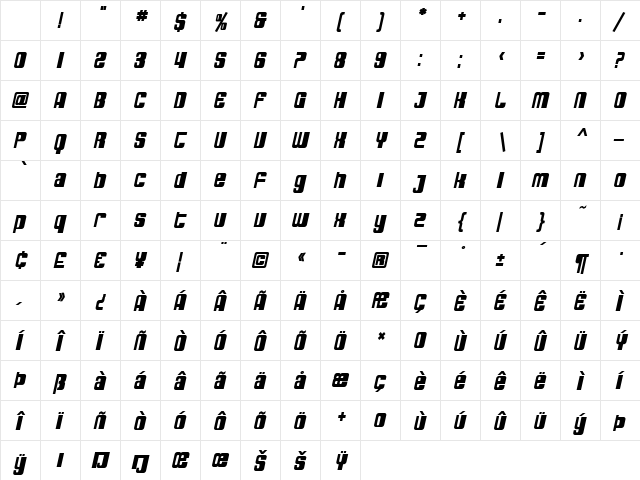
Complete SF DecoTechno Bold Oblique glyph index. Displaying only characters natively supported by SF DecoTechno Bold Oblique font.
SF DecoTechno has a distinctly futuristic character, with geometric precision and clean angles that feel at home in technology, gaming, and sci-fi contexts. The slanted form adds forward momentum and visual energy. Its bold stroke weight gives it real presence on the page.